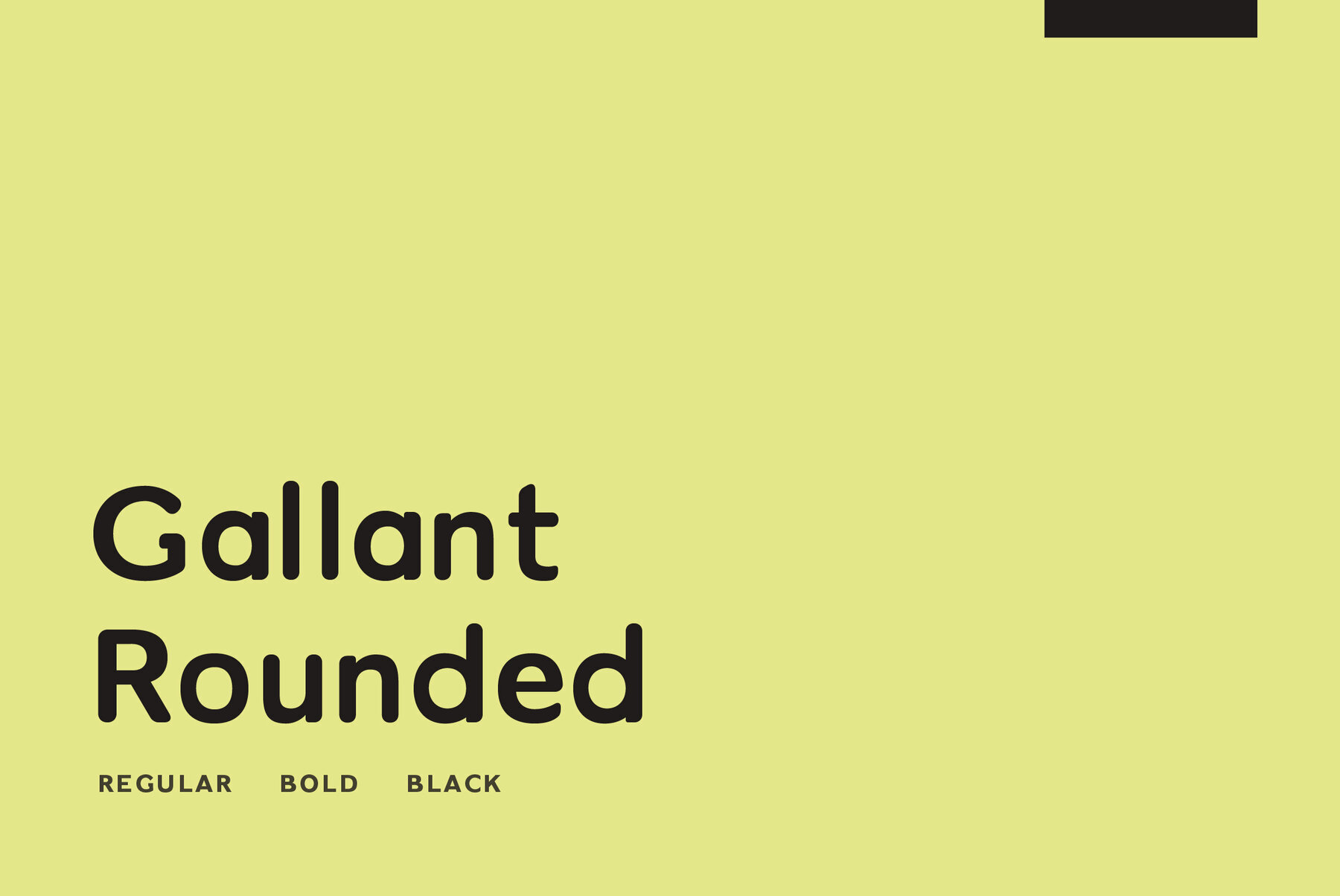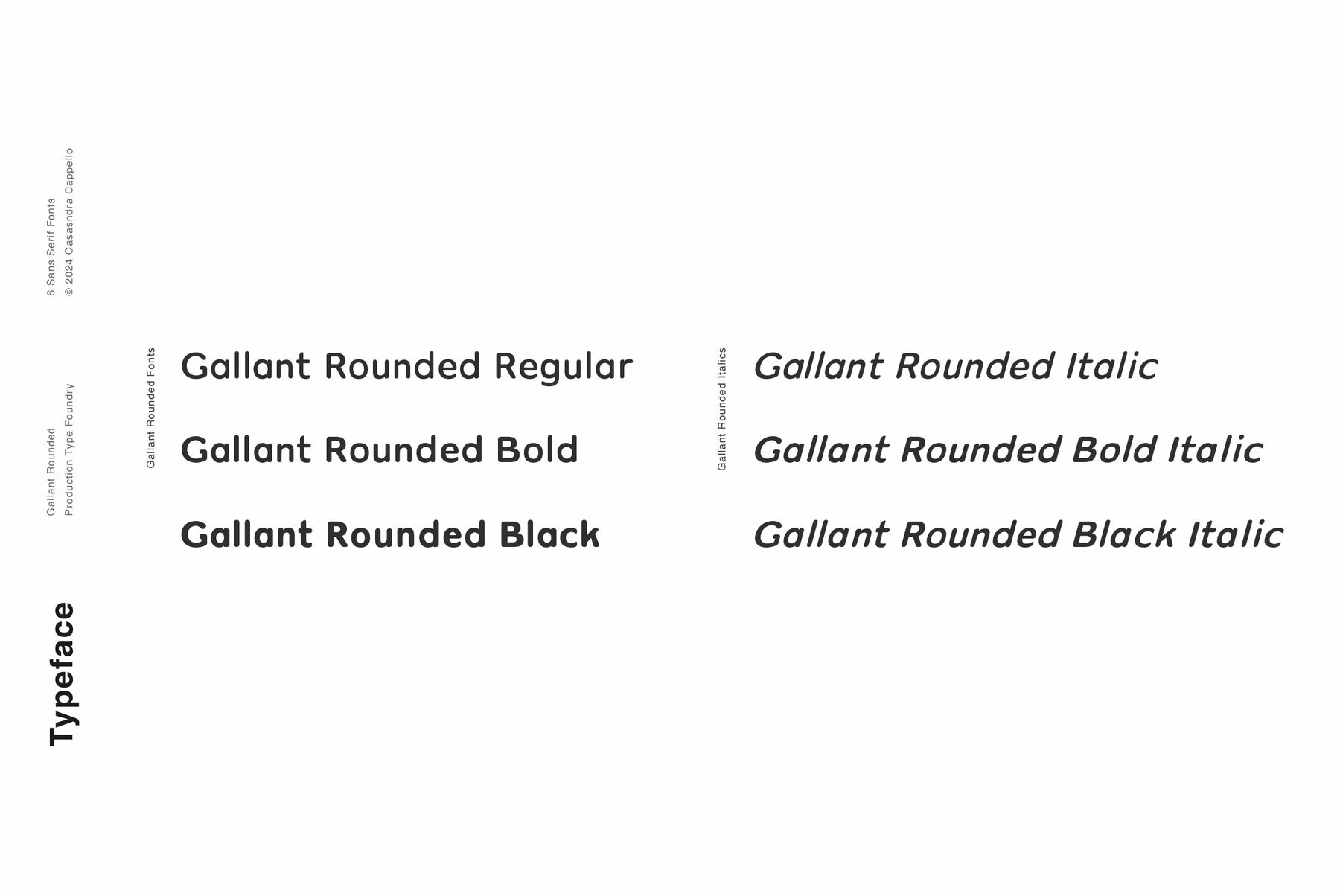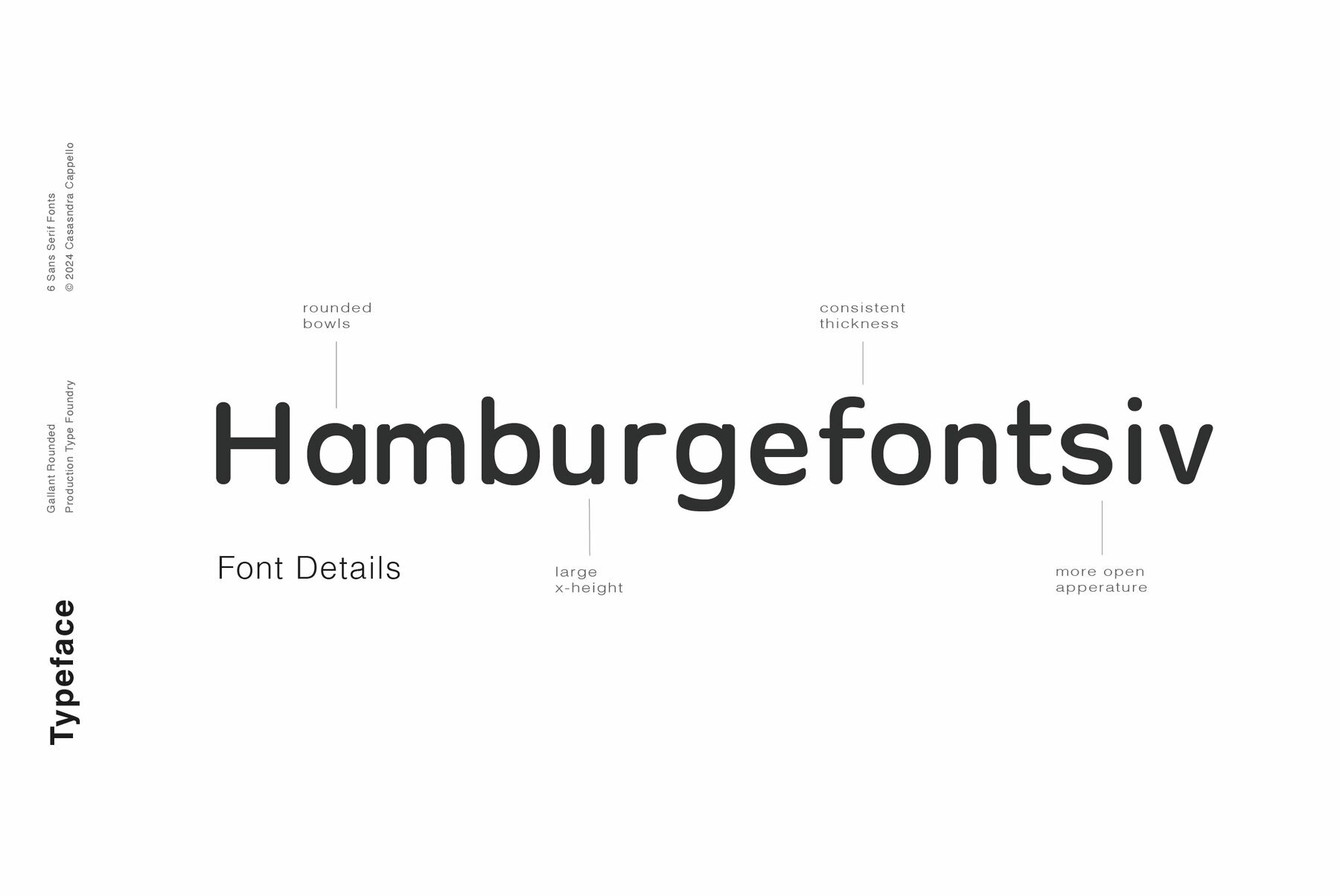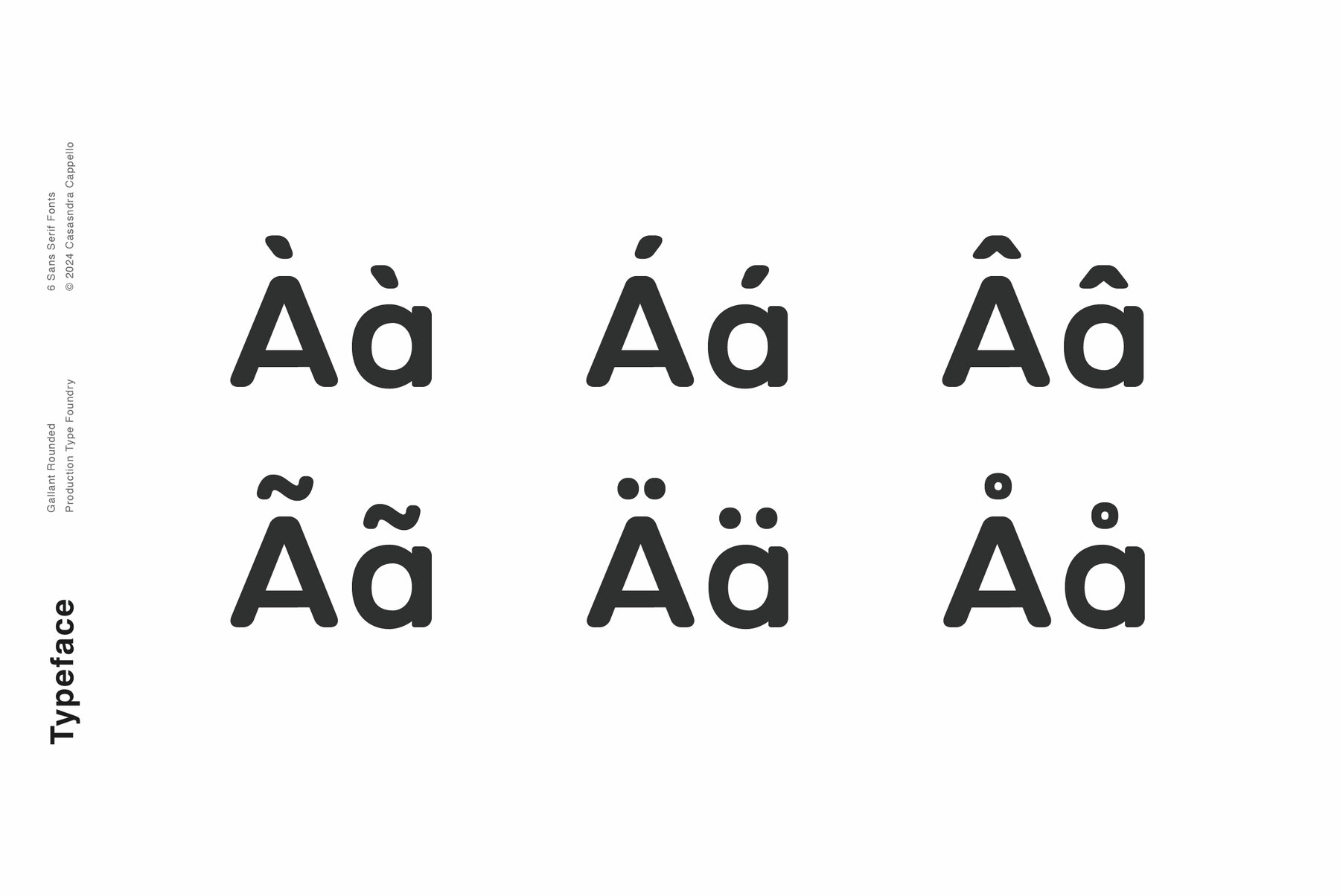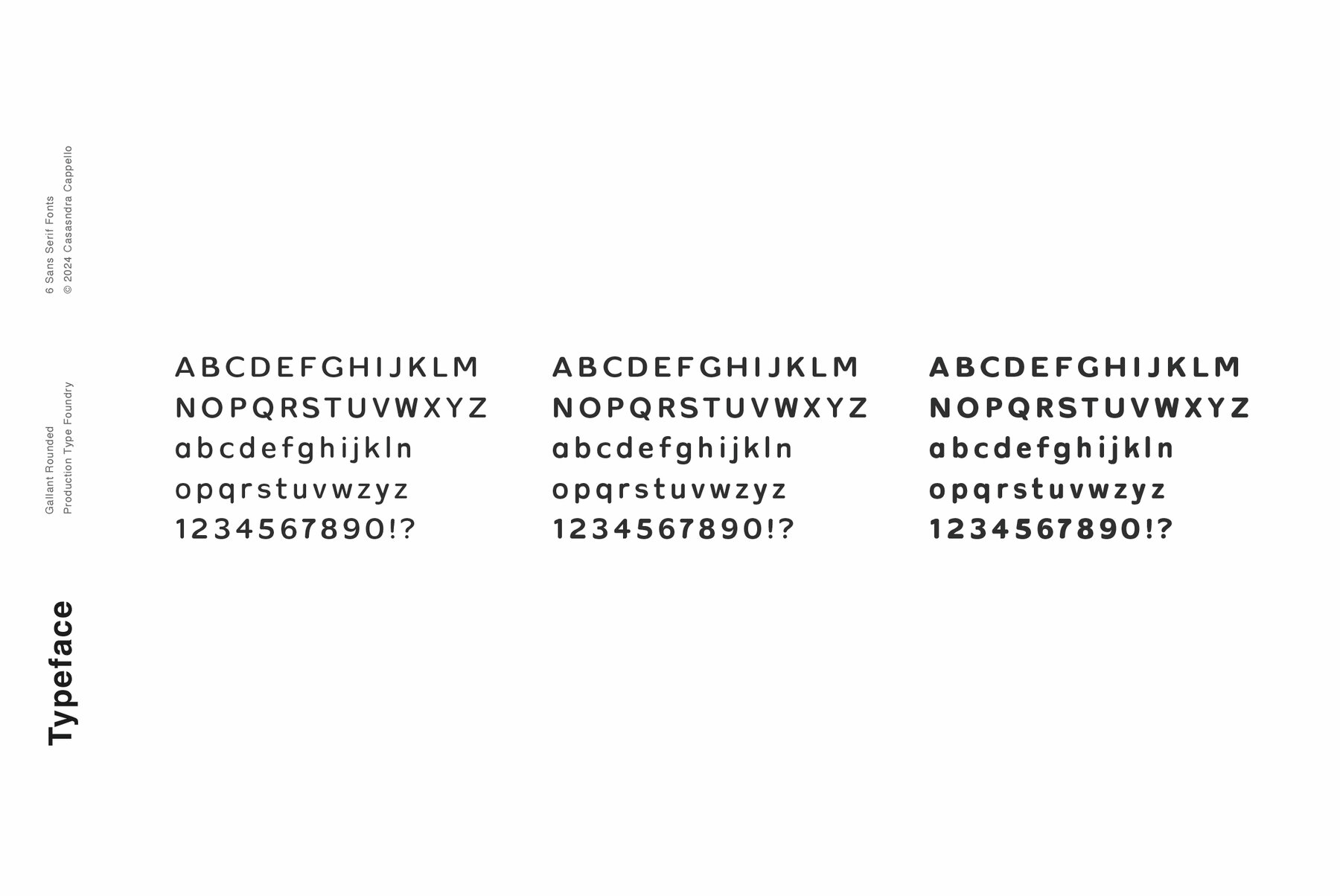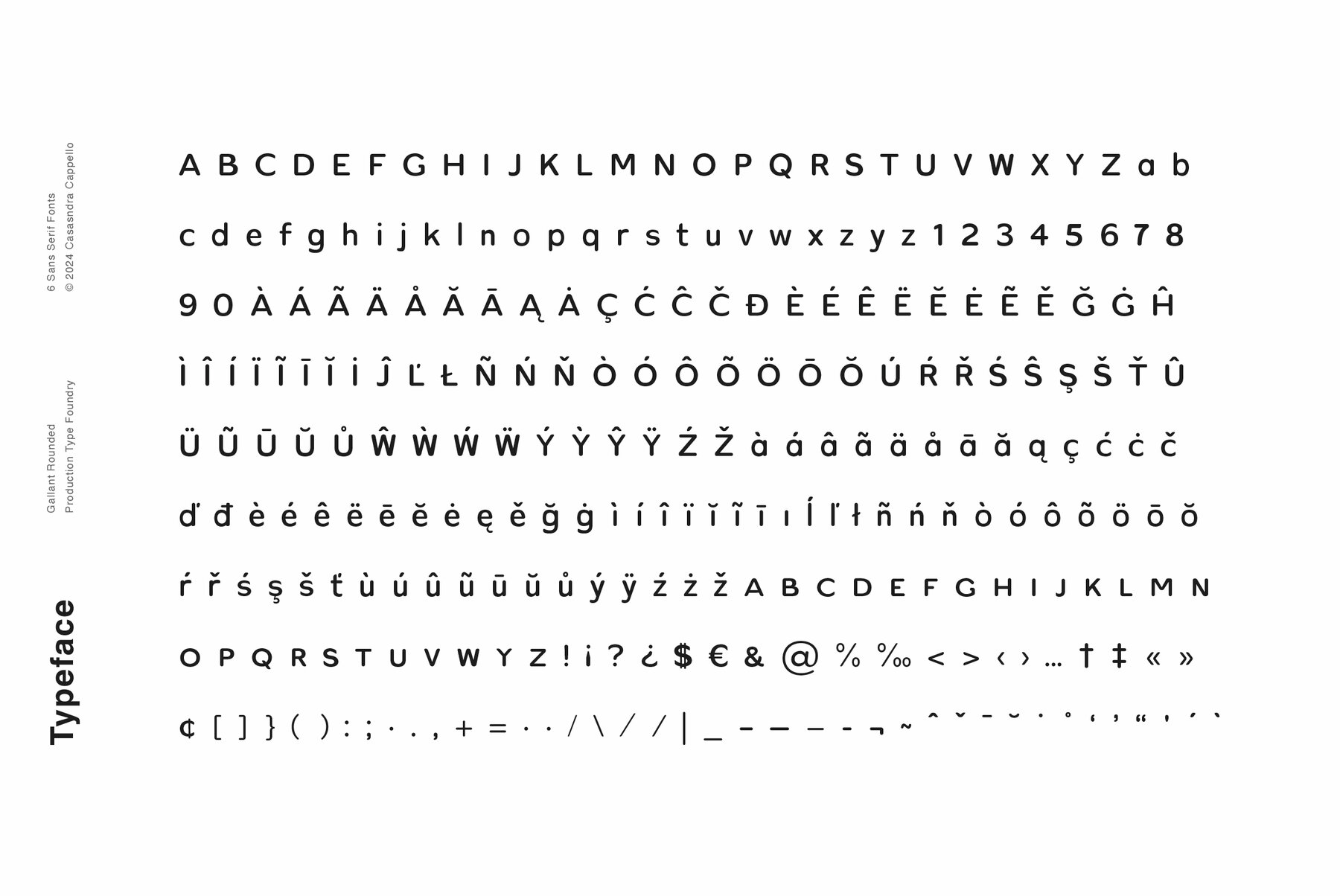
Gallant Rounded Font
Gallant Rounded is a modern, geometric, sans serif typeface. It has a little bit of personality and can be used for both headers and body copy. This font family includes all Latin characters (including accents), numbers, special characters, and punctuation.